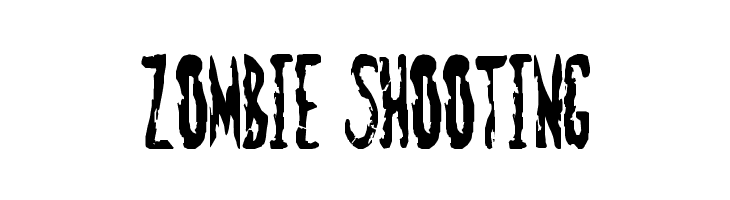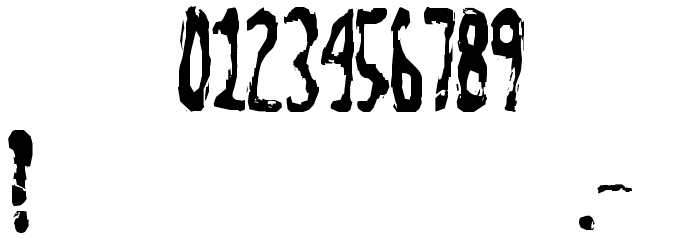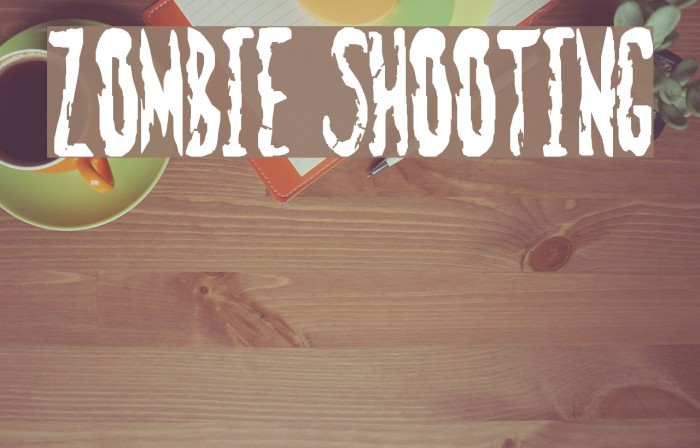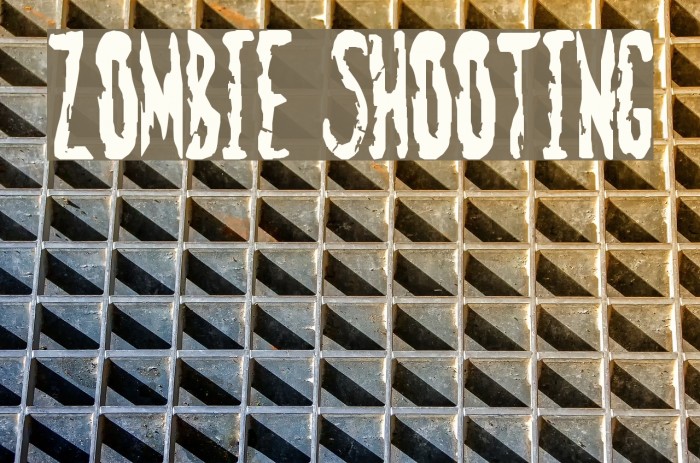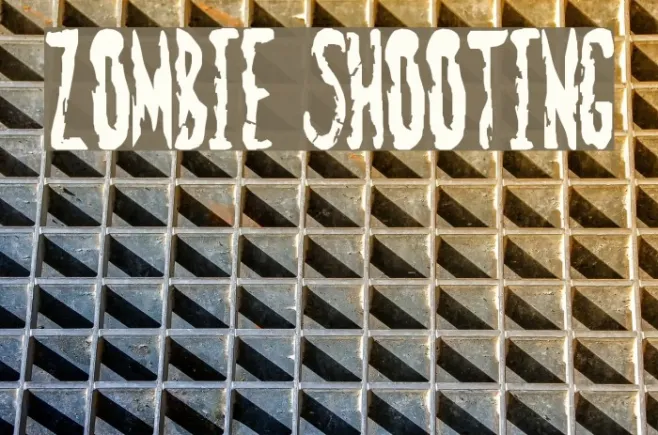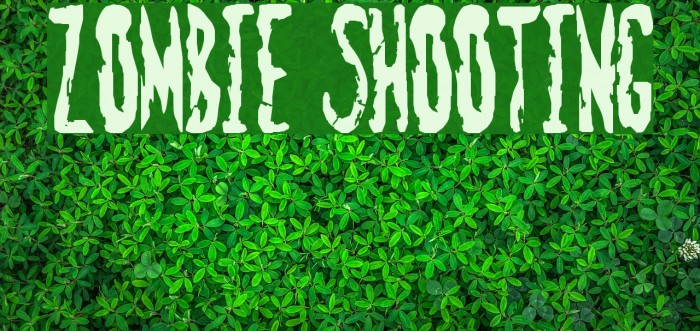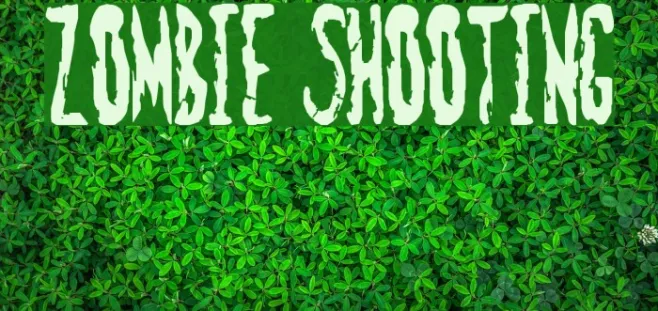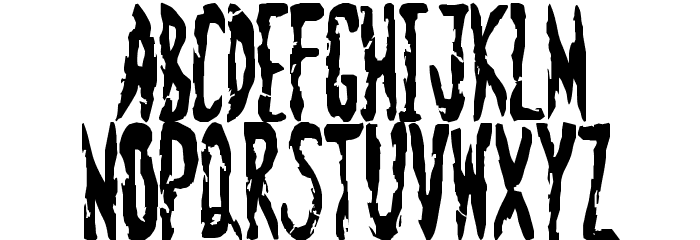
Zombie Shooting Font
Zombie Shooting Description
This font features a distressed and rugged appearance, reminiscent of horror or zombie themes. The characters are jagged and uneven, with a hand-drawn quality that gives them a chaotic and eerie feel. The uppercase and lowercase letters maintain a consistent style, with sharp edges and irregular strokes that suggest decay or damage. The numerals and special characters follow the same design principles, enhancing the overall unsettling aesthetic. This font is perfect for projects that require a spooky or dramatic impact, such as Halloween-themed designs, horror movie posters, or video game titles.
| Proposed Projects | Ideal for Halloween designs, horror movie posters, and spooky video game titles. |